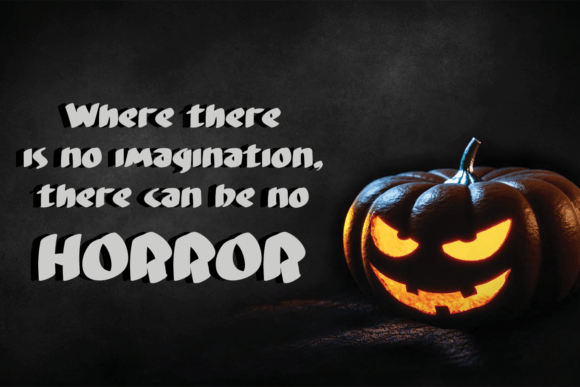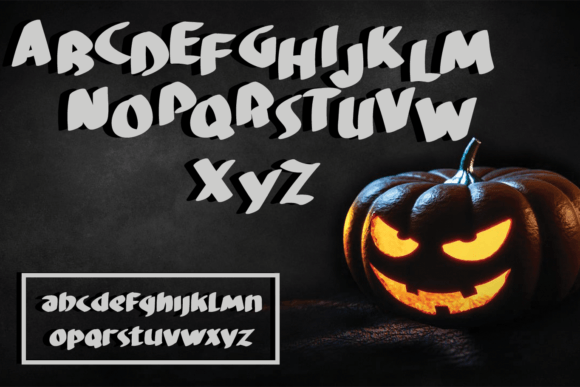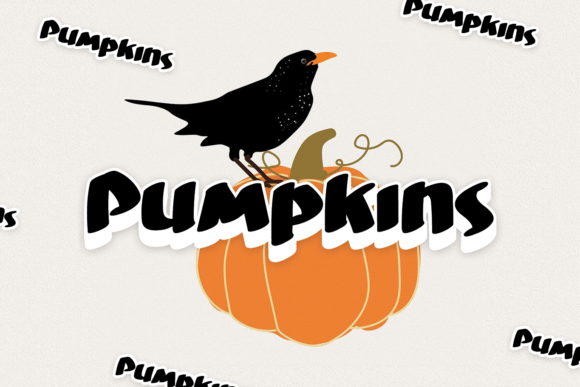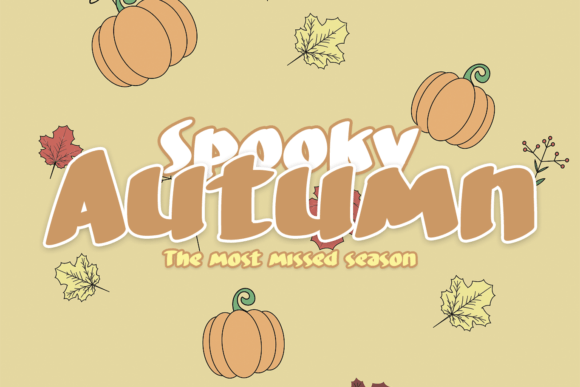
Getting Ready for a Spooktacular Design
As the sun sets on a crisp autumn evening, and the jack-o-lanterns begin to glow, creatives around the world start brainstorming ideas for their next design project. It’s the perfect time to tap into the magic of the season and infuse your work with a dash of whimsy. That’s where the Hello Halloween Font comes in – a bold, daring display font that’s sure to cast a spell on your audience.
This quirky font is designed to add a touch of Halloween charm to your designs, making them come alive with its chunky, playful characters. Whether you’re working on a spooky-themed project or just want to add a seasonal twist to your branding, the Hello Halloween Font is the perfect tool for the job. Its versatility and unique style make it a valuable asset for designers looking to add some personality to their work.
Hello Halloween Font Key Features
- Unique Characteristics: Hello Halloween Font features a spooky and playful design, with intricate details and textures that evoke a sense of Halloween spirit.
- Character Set: The font includes a wide range of characters, including uppercase and lowercase letters, numbers, punctuation marks, and special symbols, making it suitable for various types of text.
- Font Styles: Hello Halloween Font offers a range of font styles, including regular, bold, italic, and bold italic, allowing users to add depth and variety to their text.
Hello Halloween Font Review
Overall, I think the Hello Halloween Font has a certain charm to it ✨. The bold, playful letters make it perfect for any Halloween-themed project or design. The font’s whimsical feel adds a touch of magic to any text it’s paired with.
- The font’s bold and playful design makes it perfect for eye-catching headings ✨
- It’s great for creating spooky or whimsical designs for Halloween-themed projects ✨
- The font’s high contrast makes it easy to read, even at small sizes ✨
- ⚠️ The font may be too playful or cartoonish for some designs, which could detract from the overall aesthetic
- ⚠️ The font may not be suitable for body text, as it can be quite bold and overwhelming
- ⚠️ The font’s limited character set may make it difficult to use for longer text
Overall, I think the Hello Halloween Font is a great addition to any designer’s toolkit, but it’s essential to use it judiciously and in the right context. When paired with the right design elements, it can add a touch of magic to any project.
Use the Hello Halloween font to create spooky and festive designs for Halloween-themed projects.
Experiment with different font sizes, colors, and styles to add depth and visual interest to your designs.
The Hello Halloween font is perfect for:
- Halloween party invitations and decorations
- Spooky social media graphics and posts
- Halloween-themed marketing materials and advertising
Alternatives to Hello Halloween Font
Creepster
Creepster is a bold, playful font with a spooky feel. It’s perfect for creating invitations, party decorations, or promotional materials for Halloween events. Creepster is more versatile than Hello Halloween Font, as it can be used for a wider range of designs, from spooky to fun and playful.
Bobbers
Bobbers is a fun, cartoonish font with a playful feel. It’s ideal for creating Halloween-themed designs that are more lighthearted and humorous, such as party invitations or social media graphics. While Bobbers is similar to Hello Halloween Font in its playful nature, it has a more rounded and childlike feel.
Spooky Sans
Spooky Sans is a modern, sans-serif font with a spooky twist. It’s perfect for creating designs that need a more sophisticated and eerie feel, such as horror movie posters or haunted house advertisements. Spooky Sans is more minimalist than Hello Halloween Font, making it ideal for designs that require a clean and simple aesthetic.